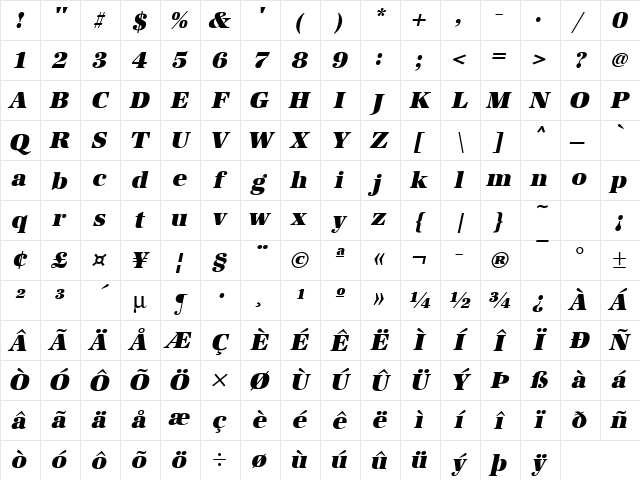
URWAntiquaTUltBol Oblique
Design Context for URWAntiquaTUltBol
URWAntiquaTUltBol is a composed and adaptable typeface that performs quietly and consistently across a wide range of design contexts. The slanted form adds forward momentum and visual energy.
Pro Tip: Use URWAntiquaTUltBol for emphasis, pull quotes, and subheadings where its slanted energy can add rhythm to the layout.